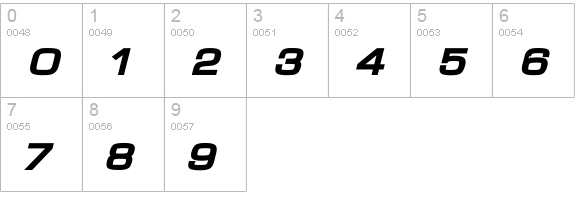
Waukegan LDO Extended Black Oblique Font Details
Waukegan LDO Extended Black Oblique is a maximum-weight, dramatic, extended-width, italic variant in the Waukegan typeface family \xE2\x80\x94 well suited to maximum-impact headlines, posters, and packaging.
Waukegan LDO Extended Black Oblique font is a visually striking and versatile typeface that exudes elegance and sophistication. With its distinct slanted and bold design, this font commands attention and adds a touch of modernity to any design project. The Waukegan LDO Extended Black Oblique font is characterized by its sleek and streamlined letterforms, making it perfect for headlines, logos, branding materials, and more. Its extended width allows for maximum impact and readability, ensuring that your message is delivered with clarity and style. What sets this font apart is its unique oblique slant, which adds a dynamic and dynamic touch to your designs. The oblique angle creates a sense of movement and energy, making it ideal for conveying a bold and forward-thinking message. One of the greatest advantages of the Waukegan LDO Extended Black Oblique font is that it is freely available to download at FontsMarket.com. This means that you can easily access and use this stunning font in your design projects without having to worry about any additional costs. Whether you are a professional designer or a hobbyist, this font offers you the opportunity to elevate your creations without breaking the bank. In conclusion, the Waukegan LDO Extended Black Oblique font is a captivating and versatile typeface that will make a lasting impression on any design project. With its bold and slanted design, it adds a touch of modernity and elegance to your designs. And the best part? It is available for free download at FontsMarket.com, making it accessible to anyone who wants to enhance their designs with a touch of sophistication.